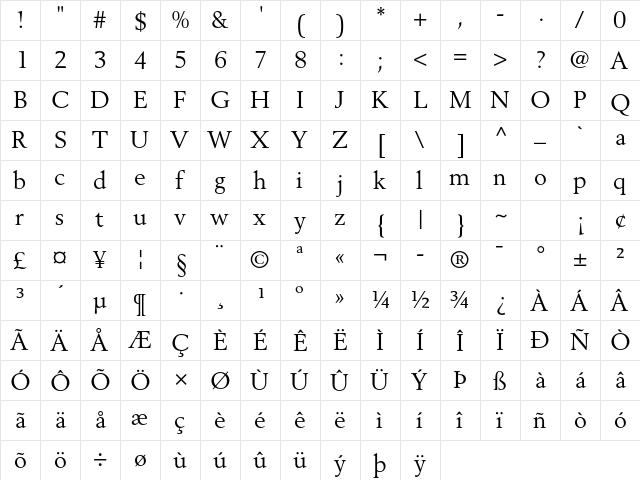
Berling LT Std Roman
| Designer | Karl-Erik Forsberg |
Design Context for Berling LT Std Typeface
Berling LT Std is a composed and adaptable typeface that performs quietly and consistently across a wide range of design contexts. Its slender proportions lend an understated elegance to any composition.